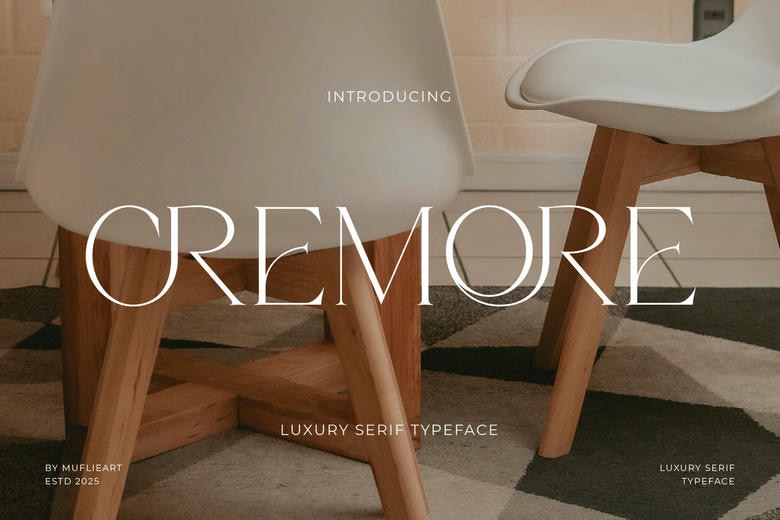
Cremore Font
Cremore Modern Classy Luxury Serif Font that is developed to be used in luxury and fashion branding. It has exclusive substitute characters, which are willing to add value to your brand. It is ideal to designers or to the owners of the products who want to have a solution to make their design looks more classy and modern. In this font, in particular, we have made some characters as alternative forms to enable you to obtain an infinite number of variations according to your need to be creative.
Cremore Serif Font